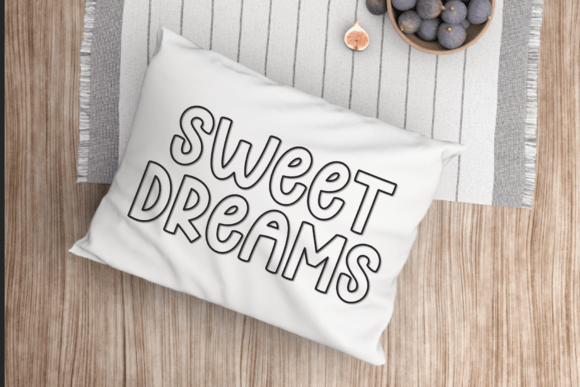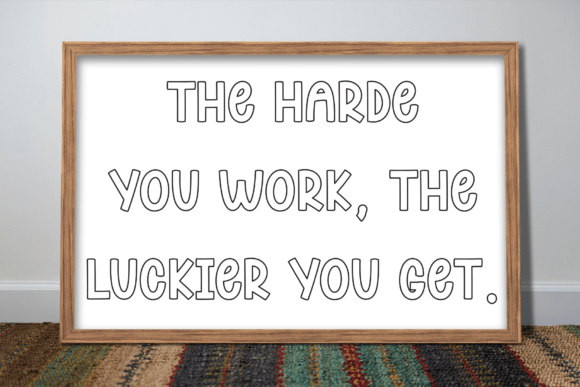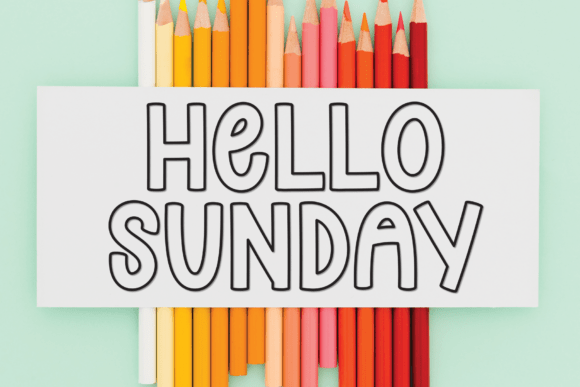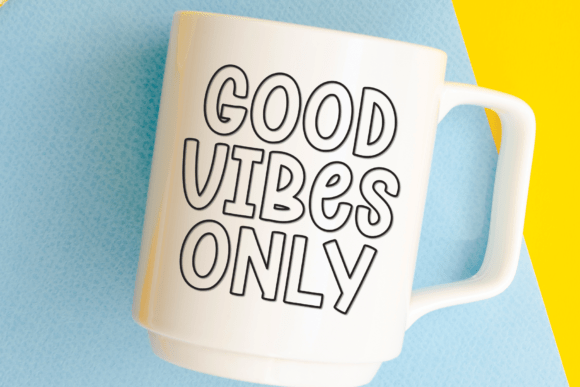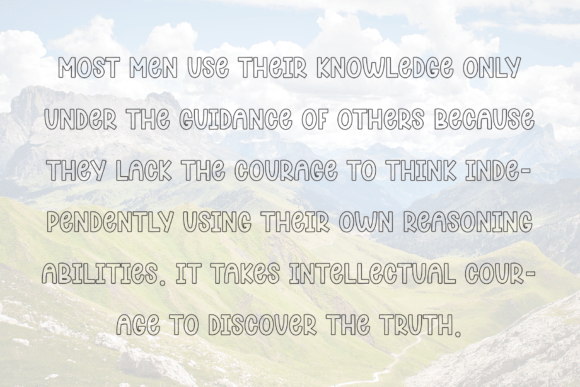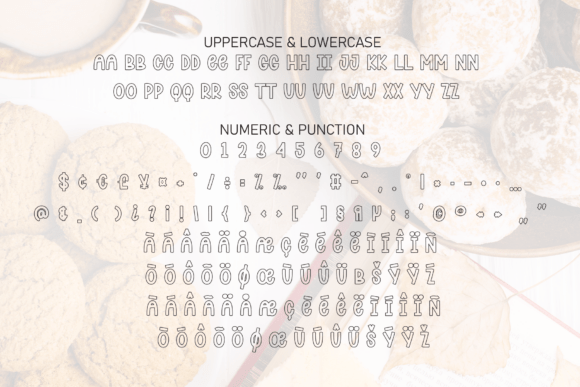
Biscuit Handmade Font: Adding a Touch of Whimsy to Your Design Projects
Are you looking for a font that can bring a playful charm to your design projects? Look no further than the Biscuit Handmade Font. This delightful and approachable handwritten display font is designed to add a touch of whimsy and uniqueness to your designs. With its endearing nature, it’s perfect for wedding invitations, greeting cards, and any design that needs a dash of fun.
Handwritten fonts have a way of capturing the joy and personality of handwritten notes. They add a touch of warmth and humanity to designs, making them more relatable and engaging. The Biscuit Handmade Font is no exception. Its adorable appeal and playful charm make it perfect for designers and crafters who want to add a personal touch to their projects.
Features of Biscuit Handmade Font
The Biscuit Handmade Font is a versatile and easy-to-use font that offers a range of features, including:
- Unique and Whimsical Design: The Biscuit Handmade Font has a unique and whimsical design that sets it apart from other fonts. Its playful charm and endearing nature make it perfect for designs that need a touch of fun.
- Handwritten Appeal: The font has a handwritten appeal that captures the joy and personality of handwritten notes. It’s perfect for designs that need a personal touch.
- Versatile: The font is versatile and can be used for a range of design projects, including wedding invitations, greeting cards, posters, and more.
Uses for Biscuit Handmade Font
The Biscuit Handmade Font is perfect for a range of design projects, including:
- Wedding Invitations: The font’s playful charm and endearing nature make it perfect for wedding invitations. It’s a great way to add a touch of whimsy and uniqueness to your wedding stationery.
- Greeting Cards: The Biscuit Handmade Font is perfect for greeting cards, including birthday cards, thank you cards, and more.
- Posters and Flyers: The font’s bold and playful design makes it perfect for posters and flyers. It’s a great way to grab attention and add a touch of fun to your designs.
- Social Media Graphics: The Biscuit Handmade Font is perfect for social media graphics, including Facebook posts, Instagram stories, and more.
Tips for Using Biscuit Handmade Font
Here are some tips for using the Biscuit Handmade Font:
- Use it Sparingly: The Biscuit Handmade Font is a bold and playful font, so it’s best to use it sparingly. Use it for headings or titles, and a simpler font for body text.
- Experiment with Colors: The font looks great in a range of colors, so don’t be afraid to experiment. Try using it in bright and bold colors to add a touch of fun to your designs.
- Pair it with Other Fonts: The Biscuit Handmade Font pairs well with other fonts, so try pairing it with a simpler font to create a bold and playful design.
The Biscuit Handmade Font is a delightful and approachable handwritten display font that’s perfect for designers and crafters who want to add a touch of whimsy and uniqueness to their designs. With its endearing nature and playful charm, it’s perfect for wedding invitations, greeting cards, and any design that needs a dash of fun. So why not give it a try and see how it can bring your designs to life?
Whether you’re a professional designer or a crafter, the Biscuit Handmade Font is a great addition to your font collection. Its versatility and ease of use make it perfect for a range of design projects, and its unique and whimsical design is sure to capture the attention of your audience. So go ahead, get creative, and add a touch of whimsy to your designs with the Biscuit Handmade Font.